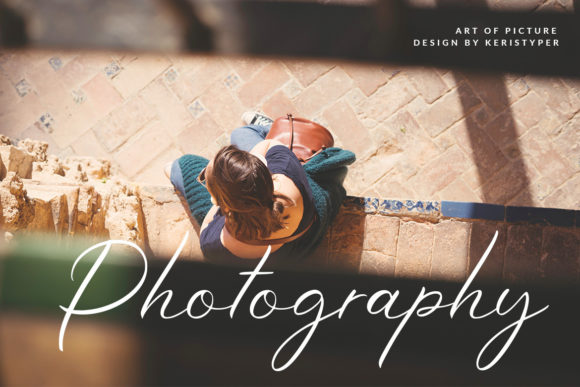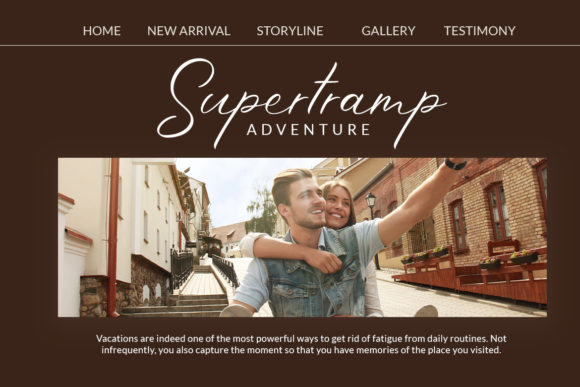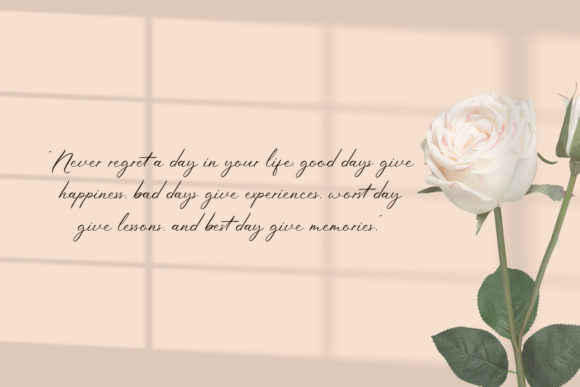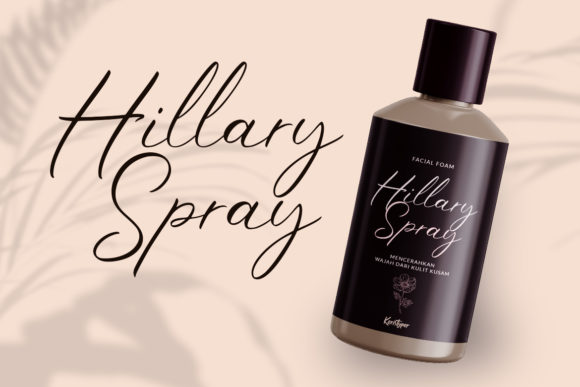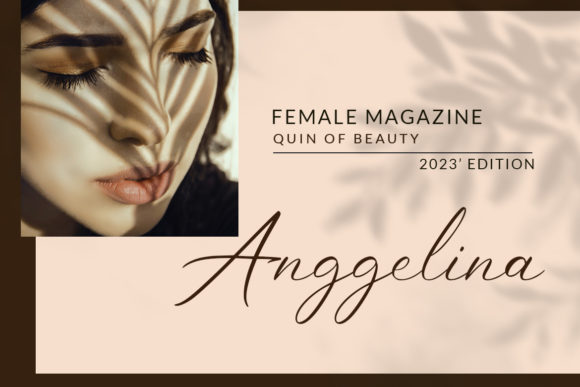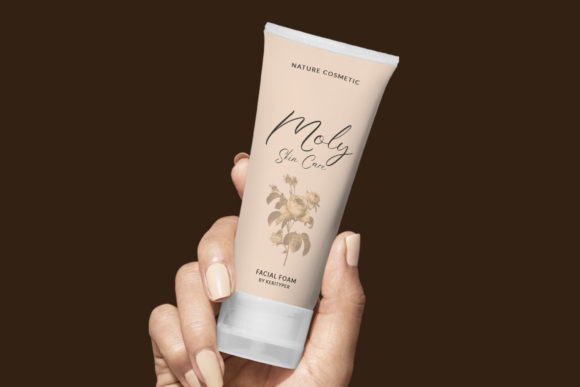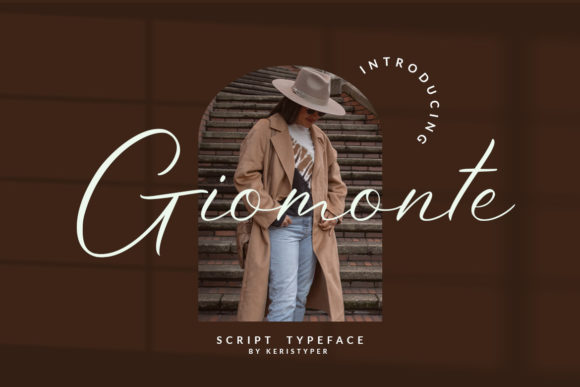
Introducing Giomonte Font: Elevate Your Designs with Elegance and Sophistication
In the world of typography, fonts play a crucial role in conveying the tone and personality of a brand or design. For designers and crafters seeking a script font that exudes class, elegance, and modernity, Giomonte Font is an exceptional choice. This beautiful script font is meticulously crafted to make a lasting impression, making it perfect for a wide range of applications, from logos and magazines to wedding cards and product packaging.
The Essence of Giomonte Font
Giomonte Font is a script typeface that embodies sophistication and refinement. Its elegant strokes and fluid connections create a sense of movement and harmony, making it an ideal choice for designs that require a touch of luxury and poise. Whether you’re working on a branding project, a fashion magazine, or a wedding invitation, Giomonte Font is sure to elevate your design to new heights.
One of the standout features of Giomonte Font is its versatility. This font is perfectly suited for a wide range of applications, including:
- Logos: Create a lasting impression with a custom logo that showcases your brand’s personality and style.
- Magazines and Books: Add a touch of elegance to your publications with Giomonte Font’s refined and sophisticated feel.
- Greeting and Wedding Cards: Make your cards truly special with a font that exudes warmth and sophistication.
- Packaging: Elevate your product packaging with a font that conveys luxury and refinement.
- Fashion and Makeup: Perfect for fashion and beauty brands seeking a font that embodies style and sophistication.
- Stationery: Create custom stationery that reflects your personal style or brand identity.
- Novels and Labels: Giomonte Font is also suitable for novels, labels, and any other type of advertising purpose.
Why Choose Giomonte Font?
With so many fonts available, why choose Giomonte Font? Here are just a few reasons why designers and crafters love this beautiful script font:
- Elegance: Giomonte Font exudes elegance and sophistication, making it perfect for designs that require a touch of luxury.
- Modernity: This font has a modern feel that’s sure to make your designs stand out.
- Class: Giomonte Font is a classy choice that’s suitable for a wide range of applications.
- Readability: This font is highly readable, making it perfect for body text and headlines.
Tips for Using Giomonte Font
To get the most out of Giomonte Font, here are a few tips to keep in mind:
- Pair with a sans-serif font: For a striking contrast, pair Giomonte Font with a sans-serif font for headlines and body text.
- Use for headlines and titles: Giomonte Font is perfect for headlines and titles, where its elegance and sophistication can shine.
- Experiment with colors: Try pairing Giomonte Font with different colors to create a unique and eye-catching design.
Giomonte Font is a beautiful script font that offers a unique blend of elegance, sophistication, and modernity. With its versatility and readability, this font is perfect for designers and crafters seeking a high-quality typeface for their projects. Whether you’re working on a logo, magazine, or wedding card, Giomonte Font is sure to elevate your design to new heights. So why wait? Discover the beauty of Giomonte Font and take your designs to the next level.